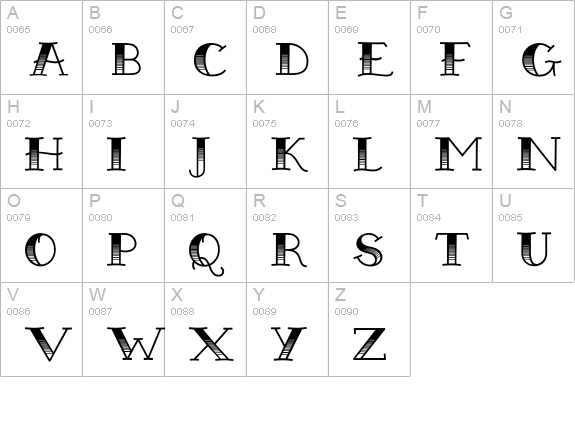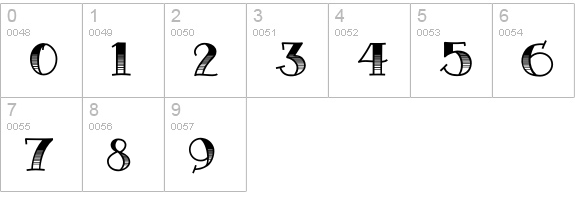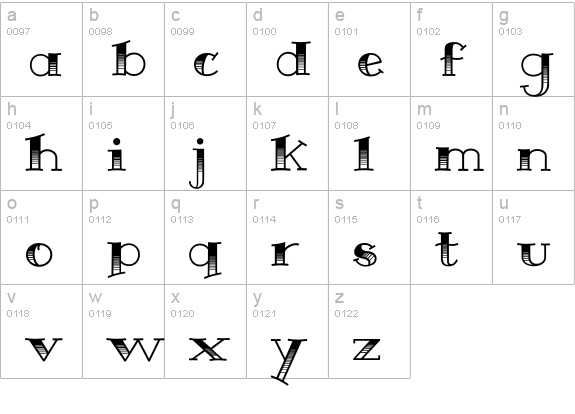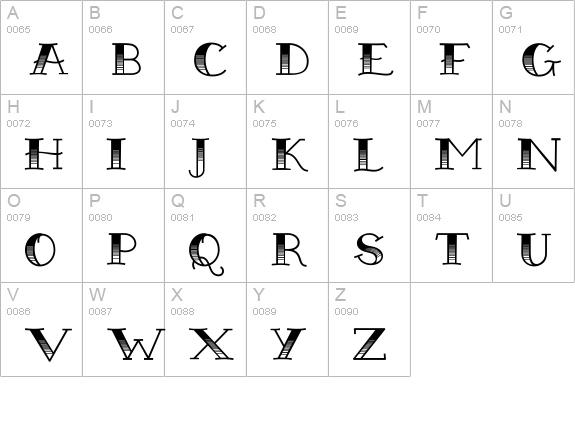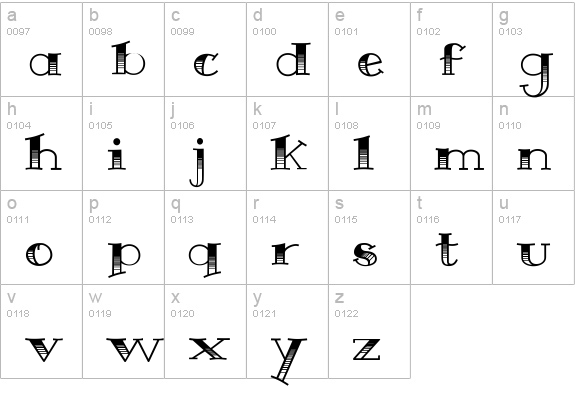
Sailor Gothic-Shaded font is a captivating and uniquely styled typeface that effortlessly combines the elegance of traditional Gothic fonts with a modern twist. This font is perfect for creating eye-catching designs that demand attention and evoke a sense of mystery and intrigue. The bold and dramatic strokes of Sailor Gothic-Shaded font make it ideal for a wide range of design projects, including branding, logo design, headlines, posters, and more. Its distinctive shading adds depth and dimension, giving your text a three-dimensional effect that is sure to leave a lasting impression on your audience. What sets Sailor Gothic-Shaded font apart is not just its stunning aesthetics, but also the fact that it is completely free to download. You can easily access this font and unleash your creativity without any restrictions or limitations. Simply head over to FontsMarket.com, a reputable source for high-quality fonts, and grab your free copy of Sailor Gothic-Shaded font today. Whether you are a professional graphic designer or a passionate hobbyist, Sailor Gothic-Shaded font is the perfect addition to your font library. Its versatility and unique design make it suitable for a wide range of projects, allowing you to bring your ideas to life with ease. Don't miss out on this incredible opportunity to enhance your designs with Sailor Gothic-Shaded font. Download it for free at FontsMarket.com and let your creativity soar to new heights.